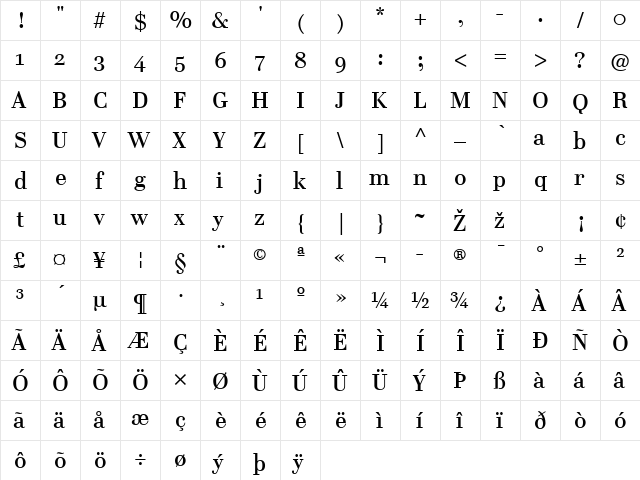
Cellini-Medium Regular
| Foundry | Albert Boton, published by FontShop International for the FontFont Library |
| Designer | Albert Boton |
Design Context for Cellini-Medium Typeface
Cellini-Medium offers clean, dependable letterforms without strong stylistic allegiance, making it a practical choice for designers who need flexibility.